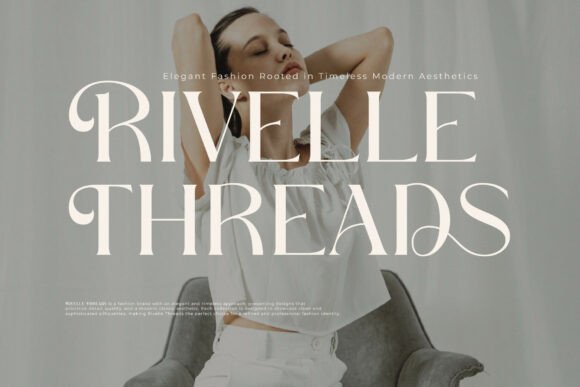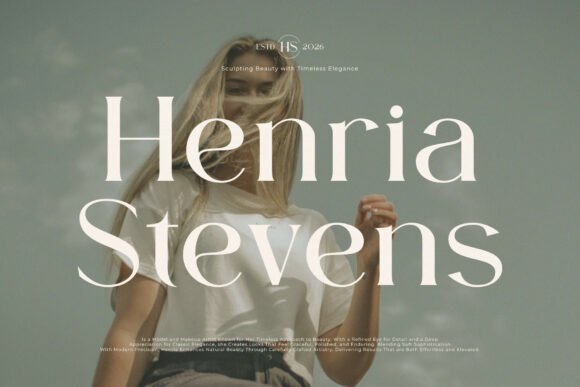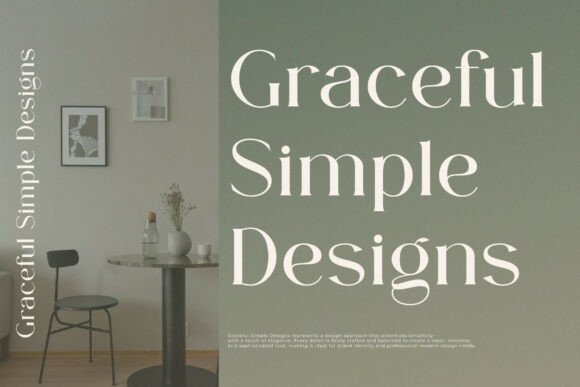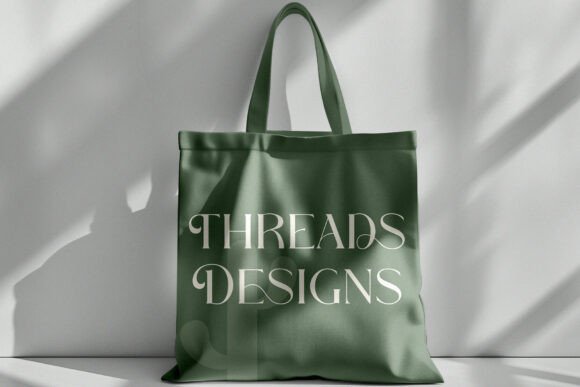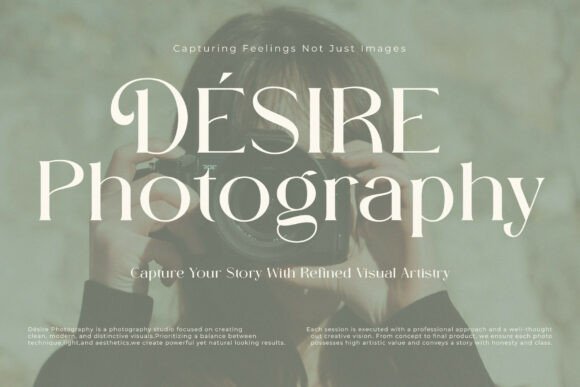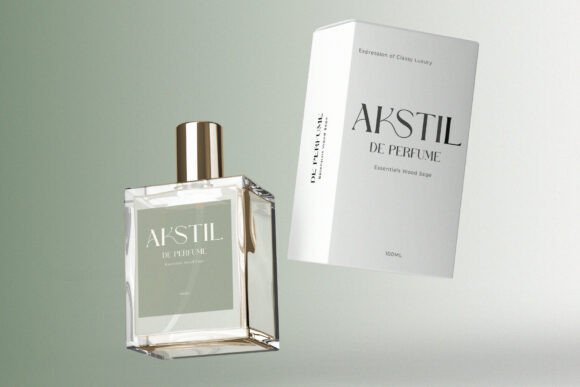
Elevate Your Visual Storytelling with the Perfect Font
As a designer, have you ever stared at a blank canvas, searching for the perfect font to bring your vision to life? The thrill of discovering a new typeface can be exhilarating – it’s like finding the missing piece to a puzzle. For me, that moment came when I stumbled upon the Becaose Font, a modern serif typeface that exudes elegance and sophistication.
This stunning font is designed to make a statement, with high-contrast strokes and a rhythmic silhouette that feels both timeless and trendy. Whether you’re crafting luxury branding, high-end editorial headers, or boutique packaging, the Becaose Font is an extraordinary choice that delivers a sense of polished artisanal beauty and unyielding professional power.
As a designer, you know how valuable a versatile and impactful font can be. The Becaose Font is a game-changer, offering a unique blend of style and sophistication that’s sure to elevate your visual storytelling and leave a lasting impression.
Key Features of “Because Font”
- Unique Characteristics: Because Font features a unique blend of modern and traditional typography, with subtle nuances that add depth and personality to any text.
- Font Family: Because Font is part of a larger font family, offering a range of companion fonts that can be used to create a cohesive and stylish visual identity.
- Language Support: Because Font supports a wide range of languages, including Latin, Cyrillic, and Greek scripts, making it a versatile choice for global applications.
- Font Size Range: Because Font is designed to be highly legible across a wide range of font sizes, from small captions to large headlines, ensuring that your text remains clear and readable.
Becaose Font Review
Overall, I was quite impressed with the Becaose font, but it’s not without its quirks.
- The font’s modern and sleek aesthetic makes it perfect for trendy digital projects.
- The high level of legibility means it’s easy to read, even at smaller font sizes.
- The font’s versatility makes it suitable for a wide range of applications, from logos to body text.
- The font’s high x-height can make it look a bit too bold or overpowering at times.
- The font’s condensed nature can make it difficult to use for long blocks of text.
- The font’s lack of bold and italic variations can limit its usage in certain situations.
Overall, the Becaose font is a solid choice for modern projects, but it’s not without its limitations. With some careful consideration of the font’s characteristics, it can be a valuable addition to any designer’s toolkit.
Tips for Getting the Most Out of Becaose Font
For the best results, use Becaose Font in conjunction with bold or italic styles to add emphasis and visual interest to your text.
Experiment with different font sizes and colors to create a unique visual identity for your brand or design project.
Becaose Font is ideal for use in logos, branding materials, and marketing materials where a